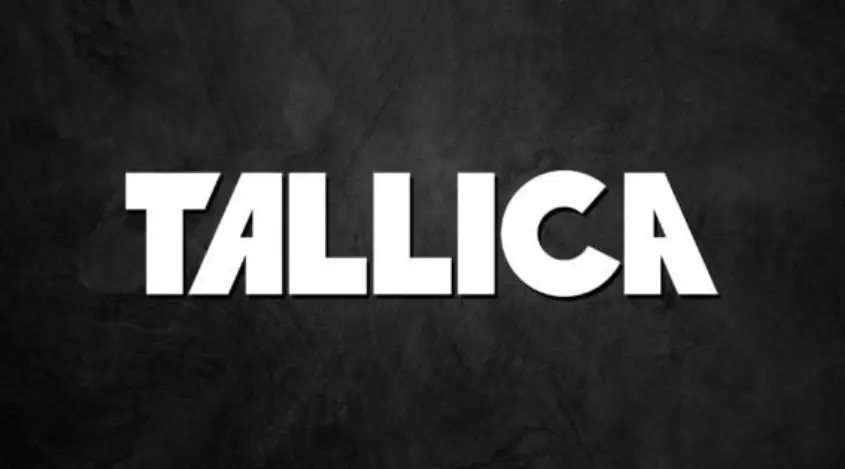
The “Tallica” font is a stylized typeface inspired by the logo of the legendary heavy metal band Metallica, particularly their classic 1980s and 1990s typography. While Metallica’s official logo was custom-designed (not a standard commercial font), several free and paid “Metallica-style” fonts exist under names like “Tallica,” “Metallica font,” but with obvious differences.
Metallica’s iconic logo (e.g., from Master of Puppets, Ride the Lightning) was hand-drawn by graphic artists, not generated from a digital font.
“Tallica” is a fan-made interpretation attempting to replicate that jagged, aggressive style.
The Tallica font is versatile and can be effectively used in a wide range of design projects. It is particularly perfect for creating titles and text for movies, cartoons, applications, brands, games, and even for designing prints on t-shirts. Its unique Gothic flair makes it a go-to choice for projects that require a touch of elegance and boldness.
In summary, the Tallica font by Abuhasnat is a Modern Gothic-inspired, stylish font that is perfect for a variety of design applications. It comes with a comprehensive set of glyphs and characters, and the lifetime license offers great value for both personal and commercial use.